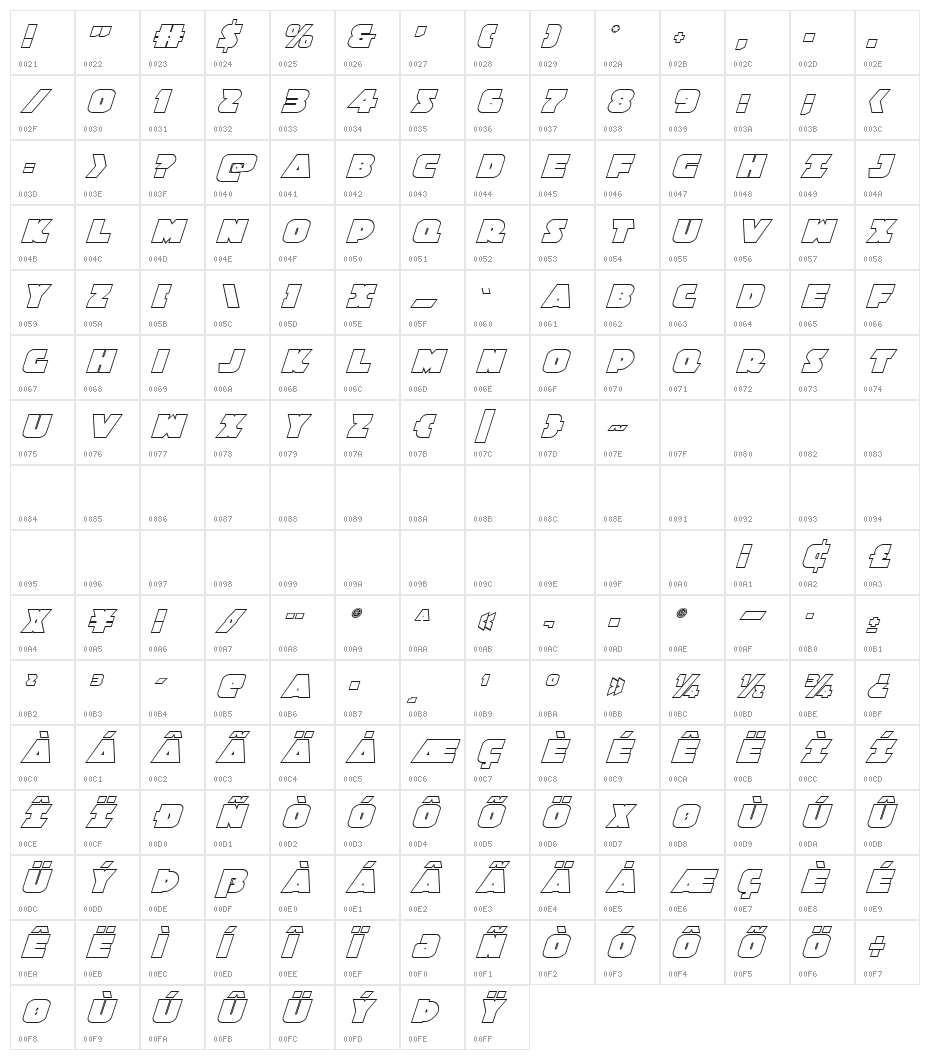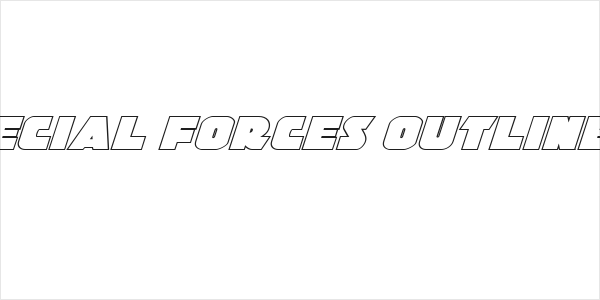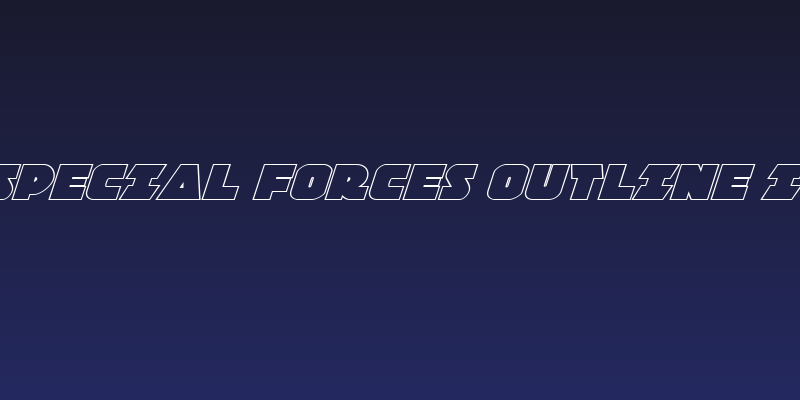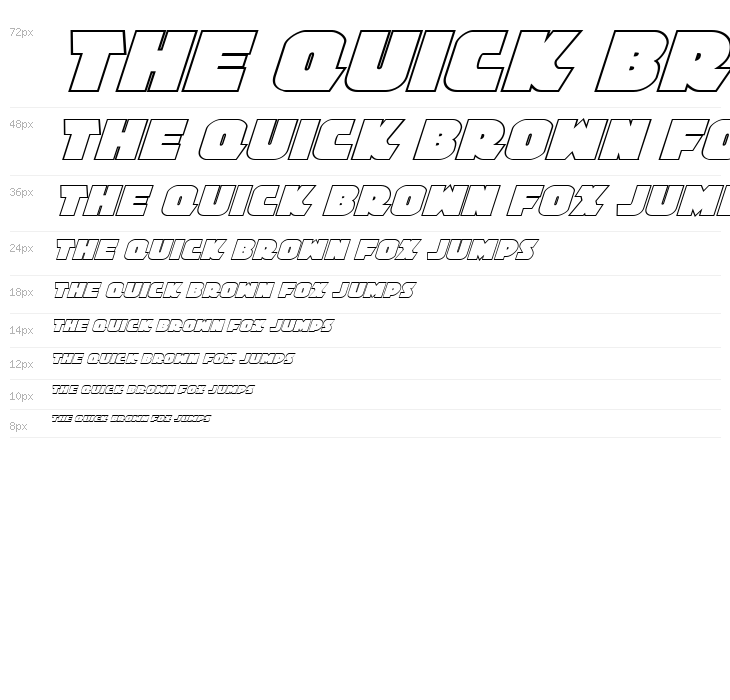
Jedi Special Forces Outline Italic Font
Jedi Special Forces Outline Italic Description
This font features a bold, futuristic style with an outlined design that gives it a distinctive and dynamic appearance. The italicized slant adds a sense of motion and speed, making it ideal for projects that require a modern and energetic look. The characters are wide and angular, with sharp edges and clean lines that enhance its readability and visual impact. The uppercase letters are particularly striking, while the numbers and special characters maintain the same bold and outlined aesthetic. This font is perfect for creating eye-catching headlines, posters, and branding materials that need to stand out.